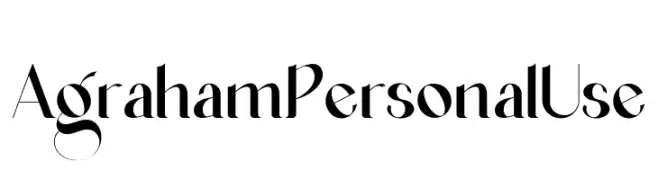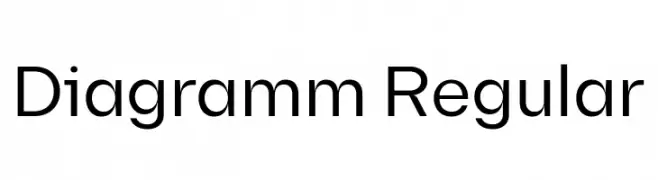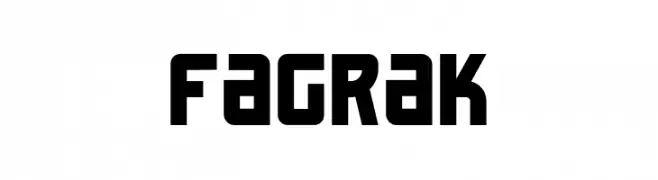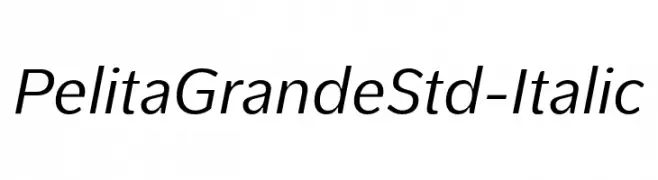
A bold, high-contrast serif font with sharp serifs and a modern twist.
A bold, geometric font with strong, angular lines and a modern look.
A bold, geometric font with a distinctive inline style, perfect for modern designs.
An elegant, flowing script font with bold, cursive letterforms.
A modern, geometric sans-serif font with clean lines and uniform strokes.
A modern, high-contrast font with elegant serifs and artistic special characters.
A bold, italic font with strong, consistent strokes and excellent readability.
A clean and modern sans-serif typeface with consistent stroke thickness.
A sleek, modern italic font with clean lines and smooth curves.
A bold, modern sans-serif font with clean lines and balanced proportions.